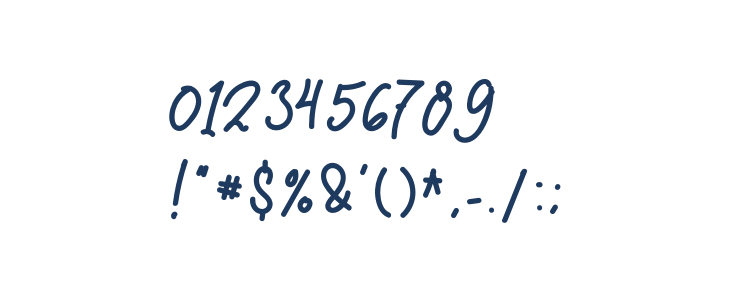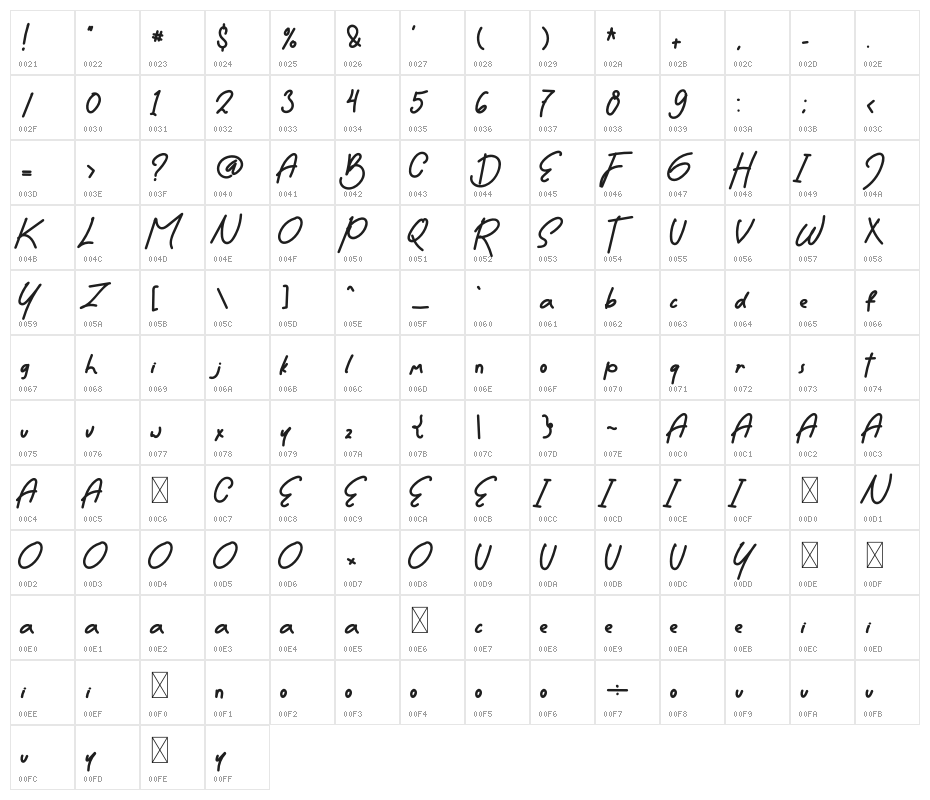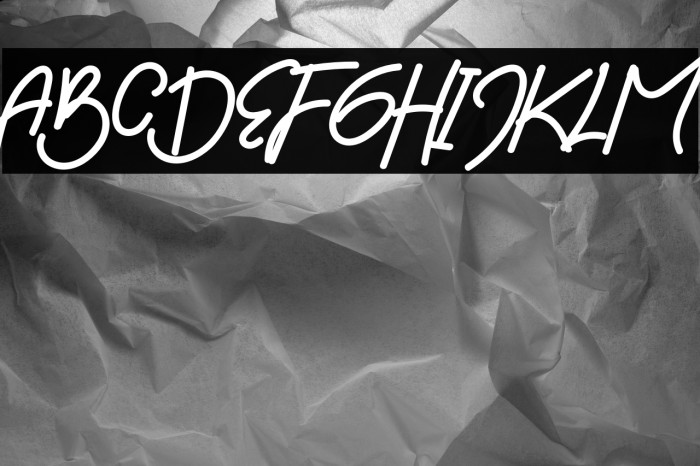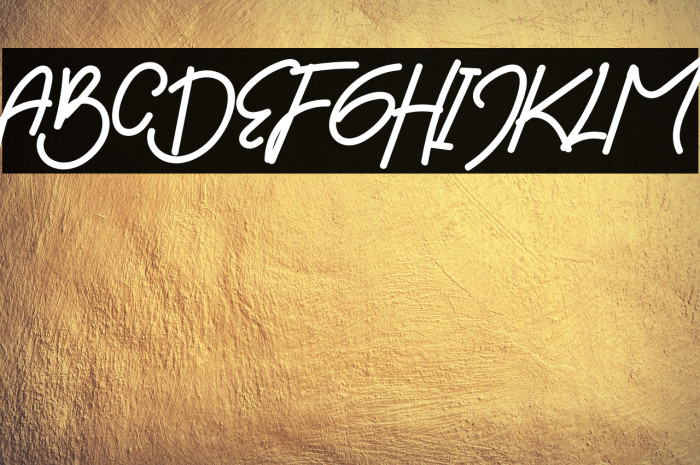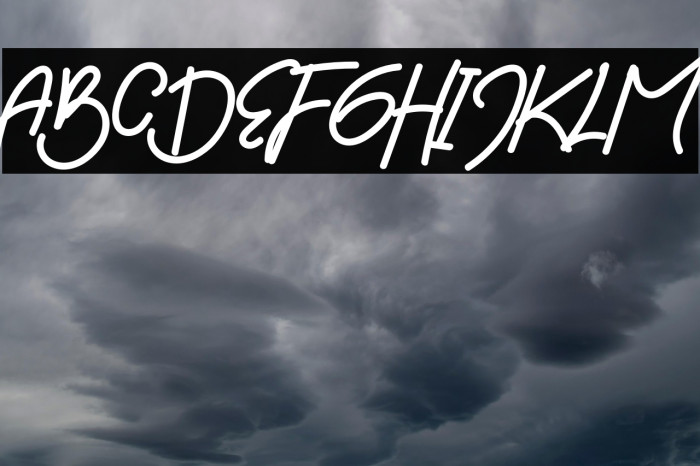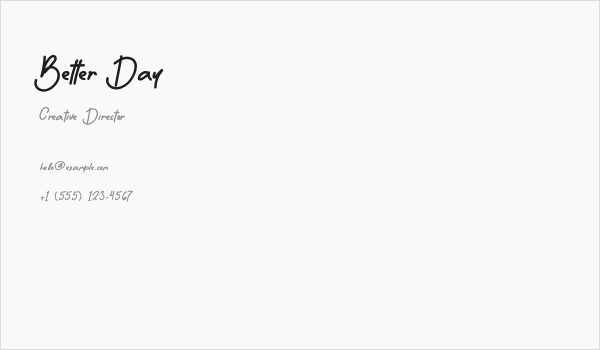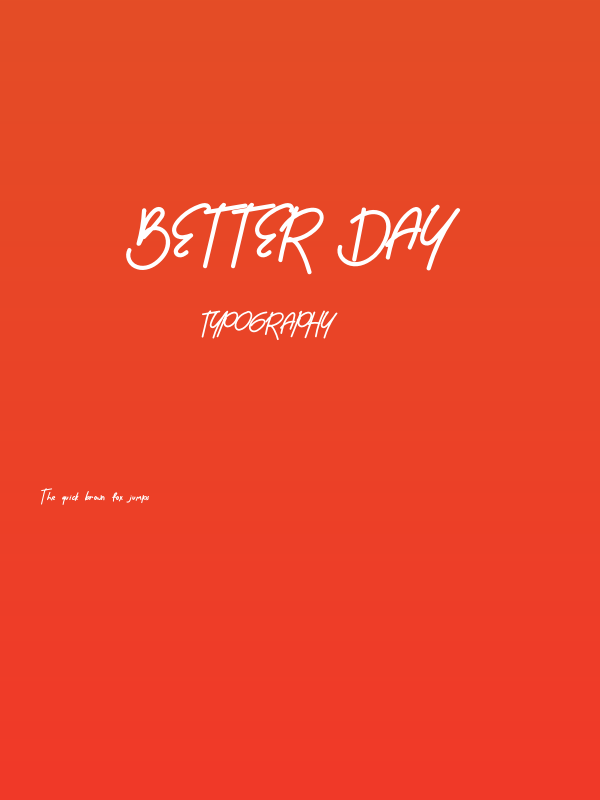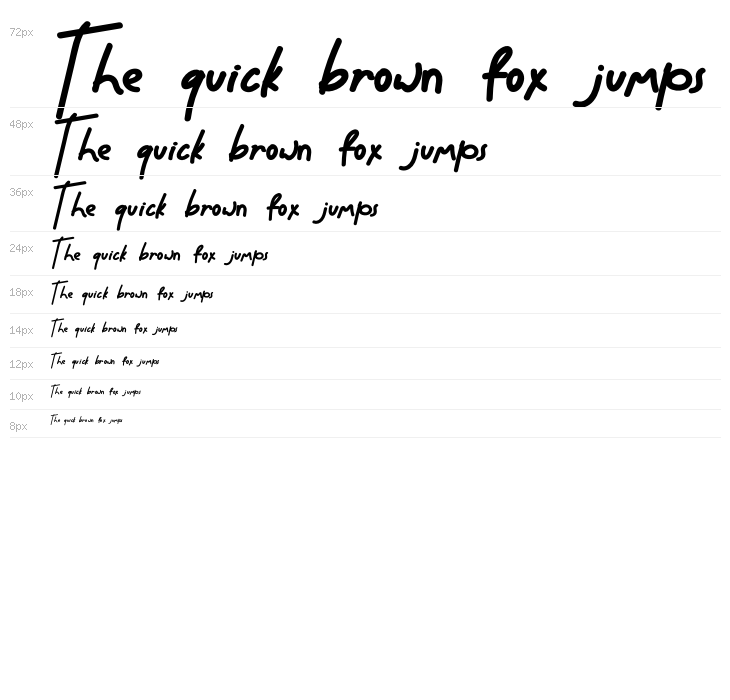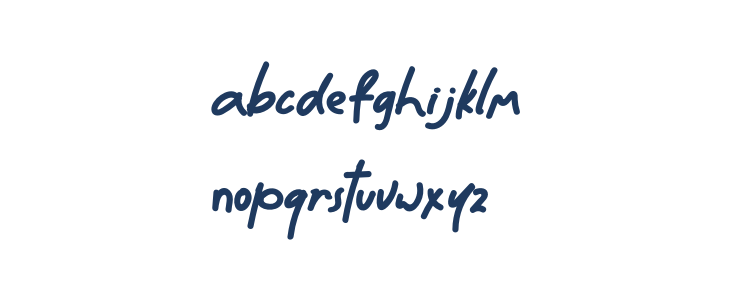
Better Day Font
This font exudes a casual, handwritten style with a playful and energetic flair. The letters are slightly slanted, giving a sense of movement and dynamism. The strokes are smooth and fluid, with varying thickness that adds a natural, organic feel. The uppercase letters are bold and prominent, while the lowercase letters maintain a consistent flow. Numbers and special characters are crafted with the same lively spirit, making them easily readable yet visually interesting. This font is perfect for projects that require a personal touch or a creative, informal vibe.
| Proposed Projects | Ideal for greeting cards, invitations, personal branding, and creative projects that need a personal touch. |